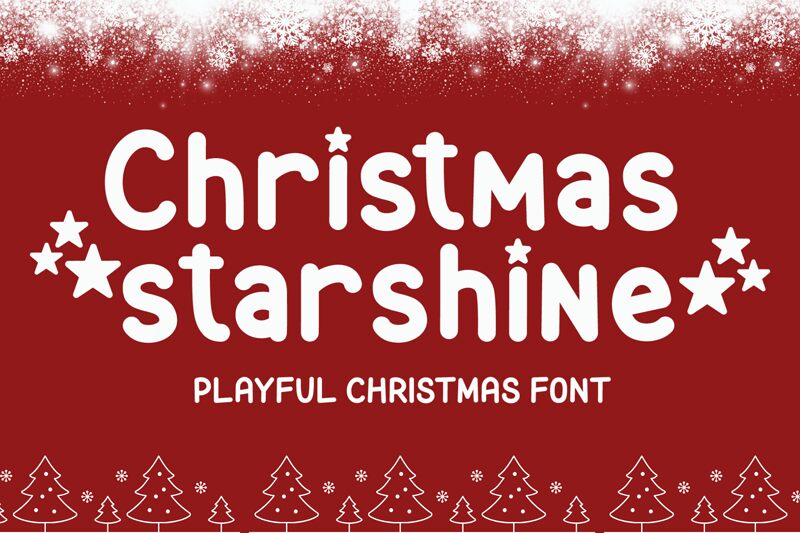
Christmas Starshine font by AEN Creative Studio is a festive holiday font designed to add a touch of whimsy to your projects. With round, youthful characters, this typeface exudes a friendly and cheerful vibe, perfect for capturing the magic of the holiday season. The casual yet contemporary style makes it versatile for various design applications. This font offers a playful and magical way to enhance your festive projects.
Perfect for holiday invitations, greeting cards, festive logos, social media graphics, and posters, Christmas Starshine brings the joy of the season to life. Use it in banners, gift tags, packaging, children’s books, digital scrapbooking, or seasonal advertisements to creatively capture the festive spirit.